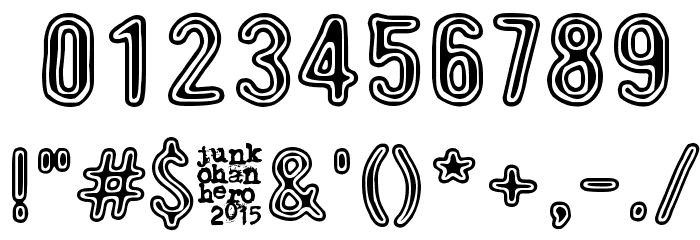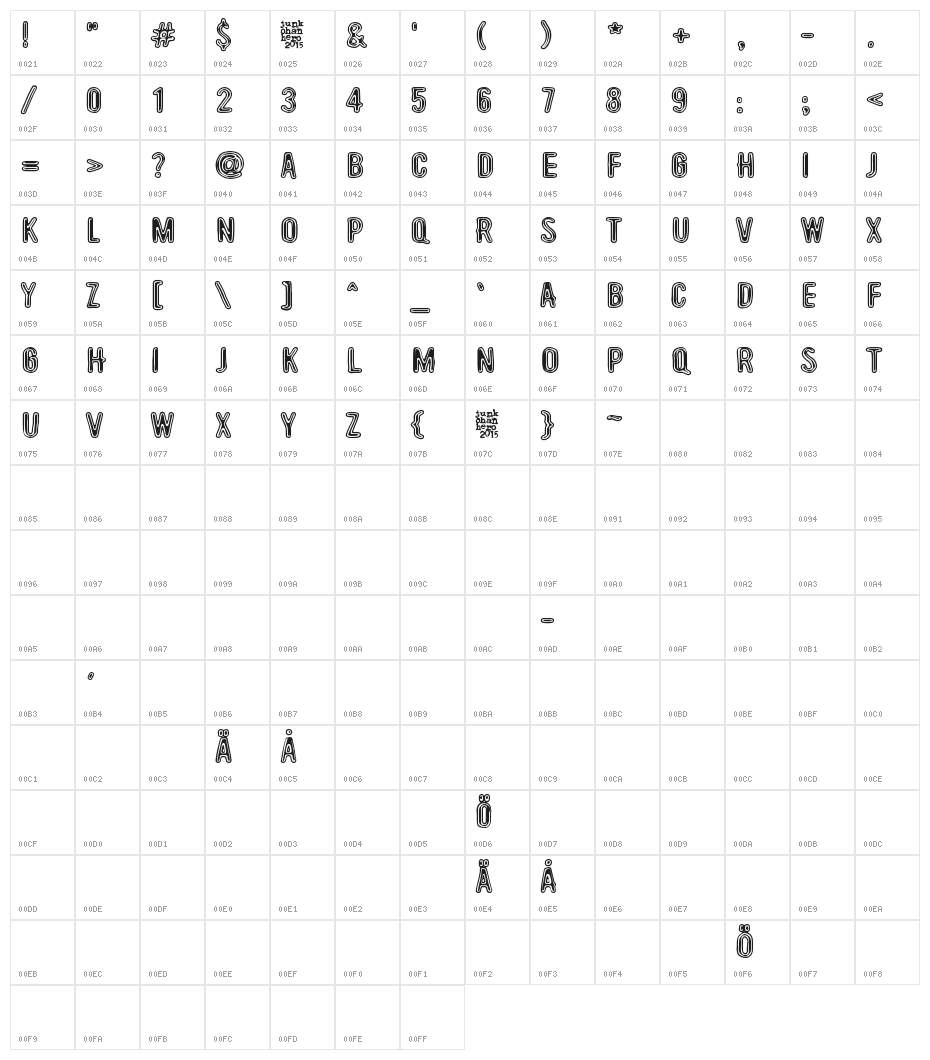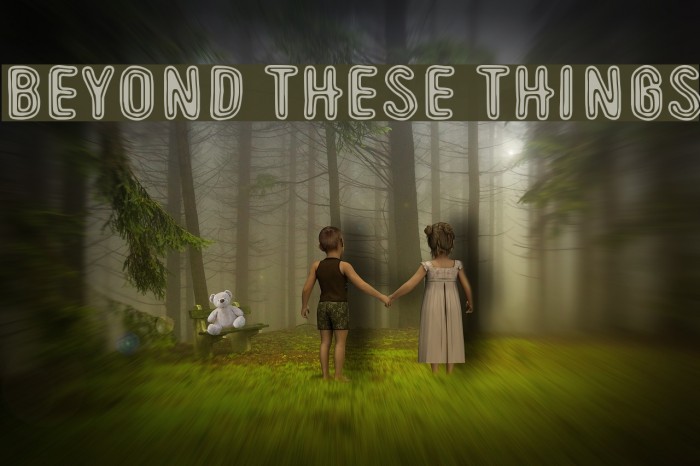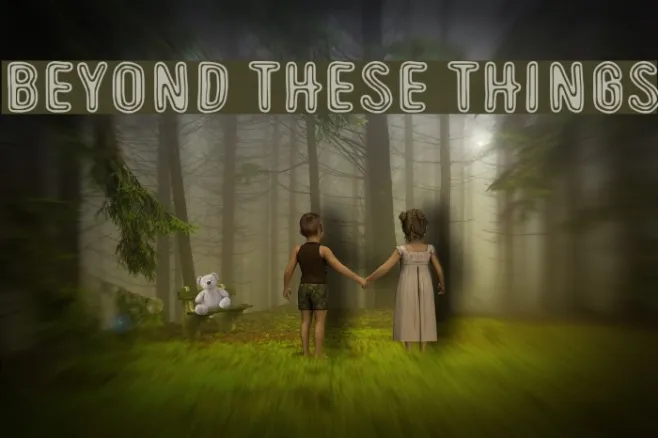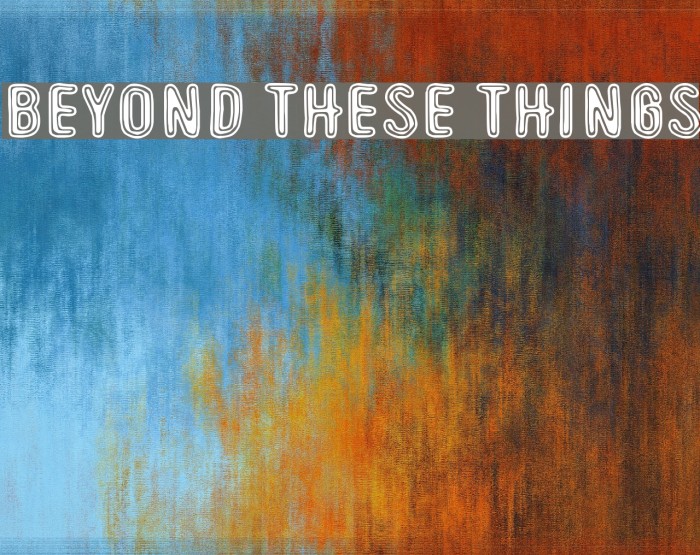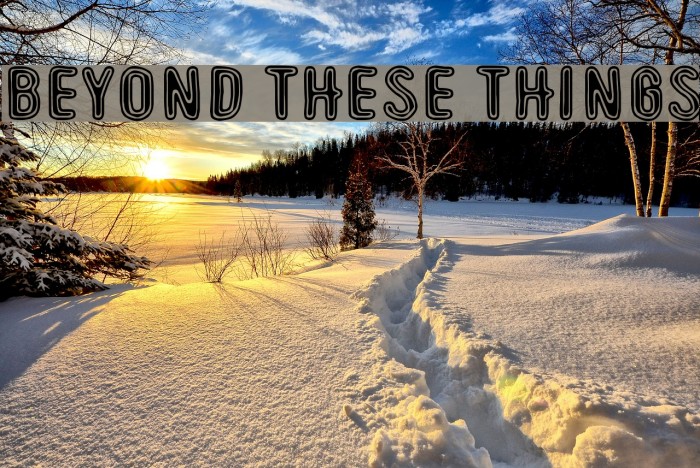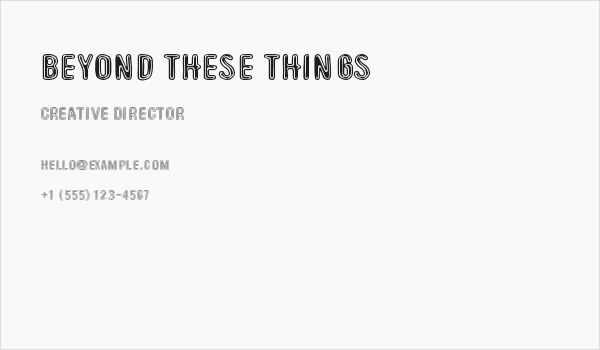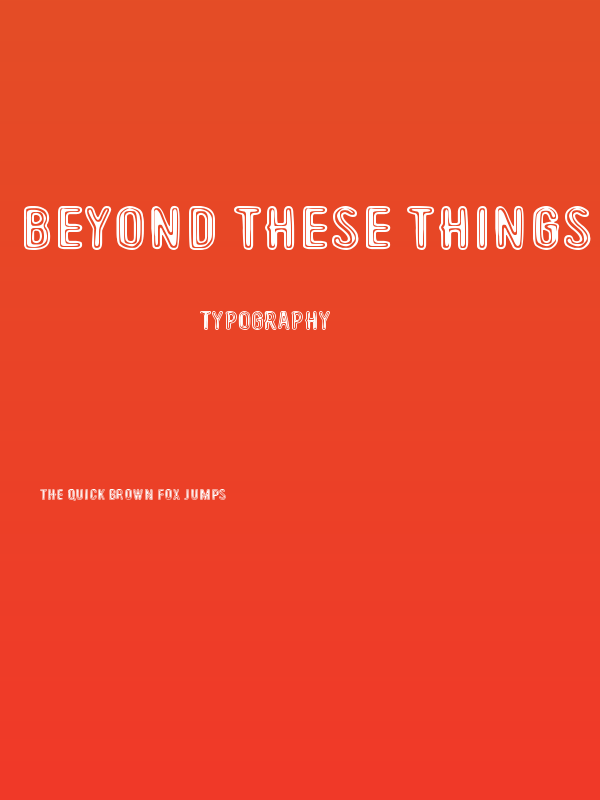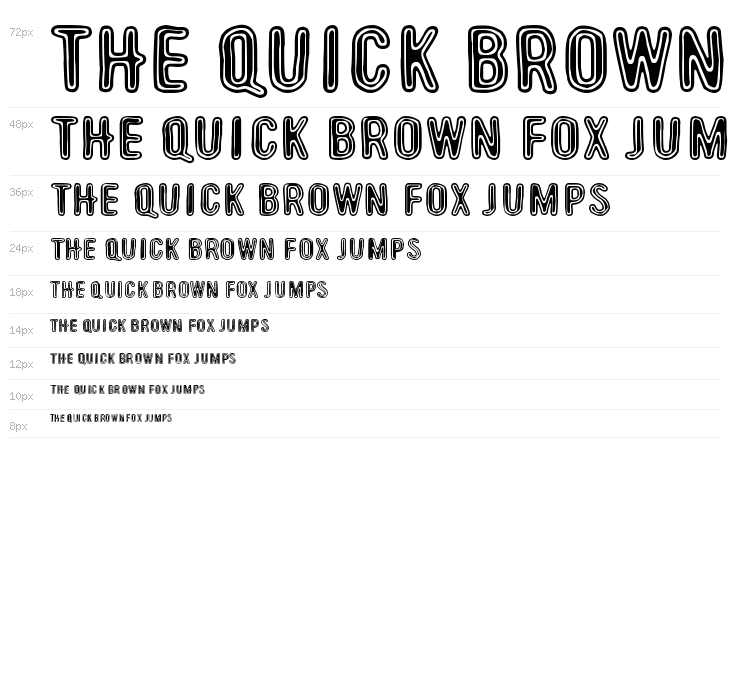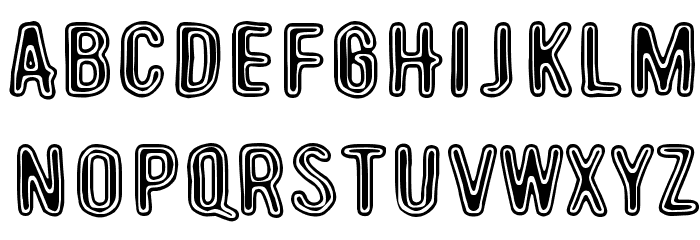
Beyond These Things Font
Beyond These Things Description
This font features a bold, outlined style with a playful and slightly retro aesthetic. The characters are uppercase and lowercase letters, along with numbers and a variety of special symbols. Each character is defined by a thick outer line, giving it a three-dimensional appearance. The font has a hand-drawn quality, adding a unique and artistic flair. The spacing between characters is relatively tight, which enhances its cohesive look. This style is reminiscent of vintage signage or comic book lettering, making it stand out with its distinct personality.
| Proposed Projects | Ideal for projects that require a fun and eye-catching design, such as posters, comic books, children's books, or branding for creative businesses. |